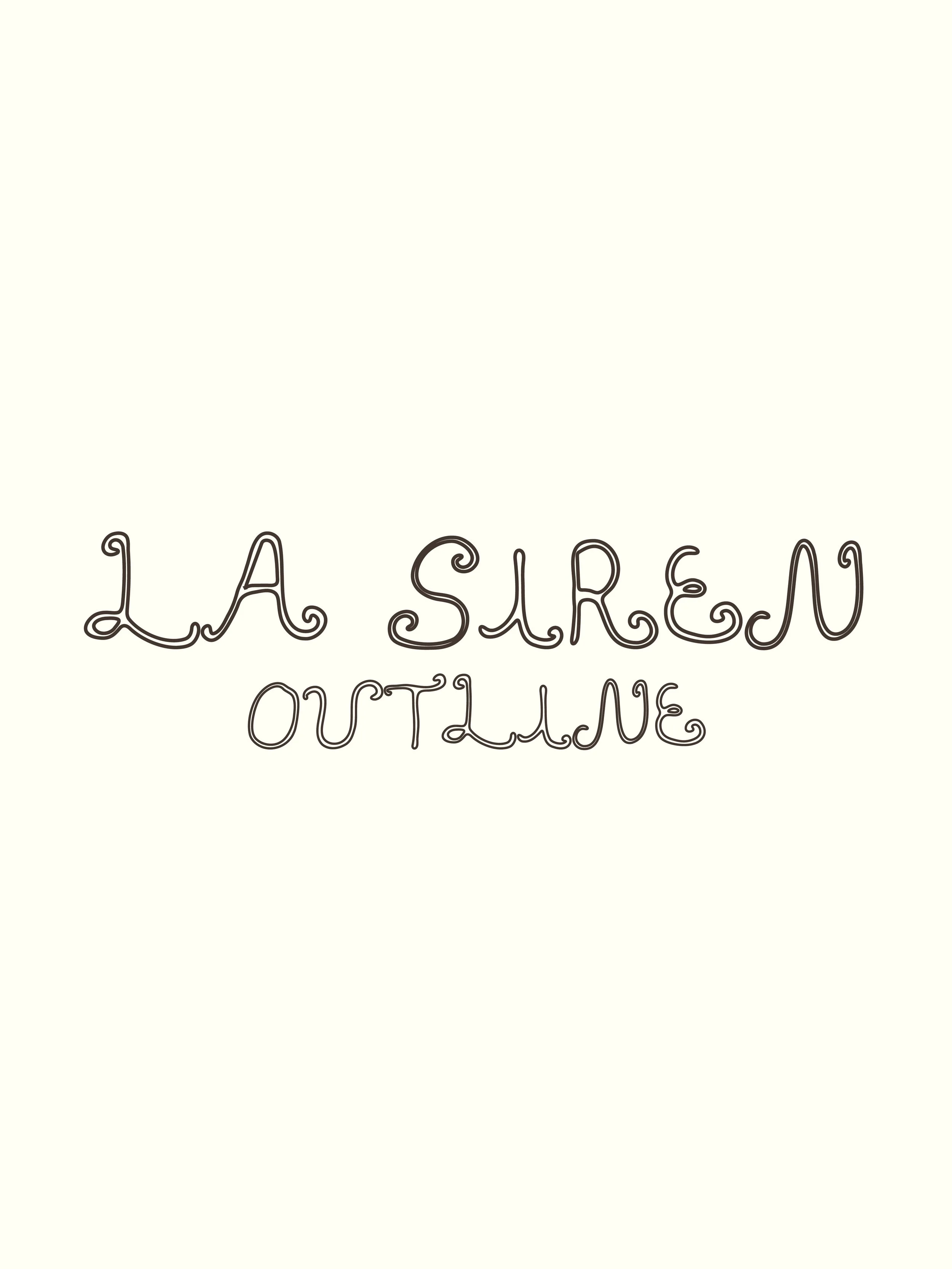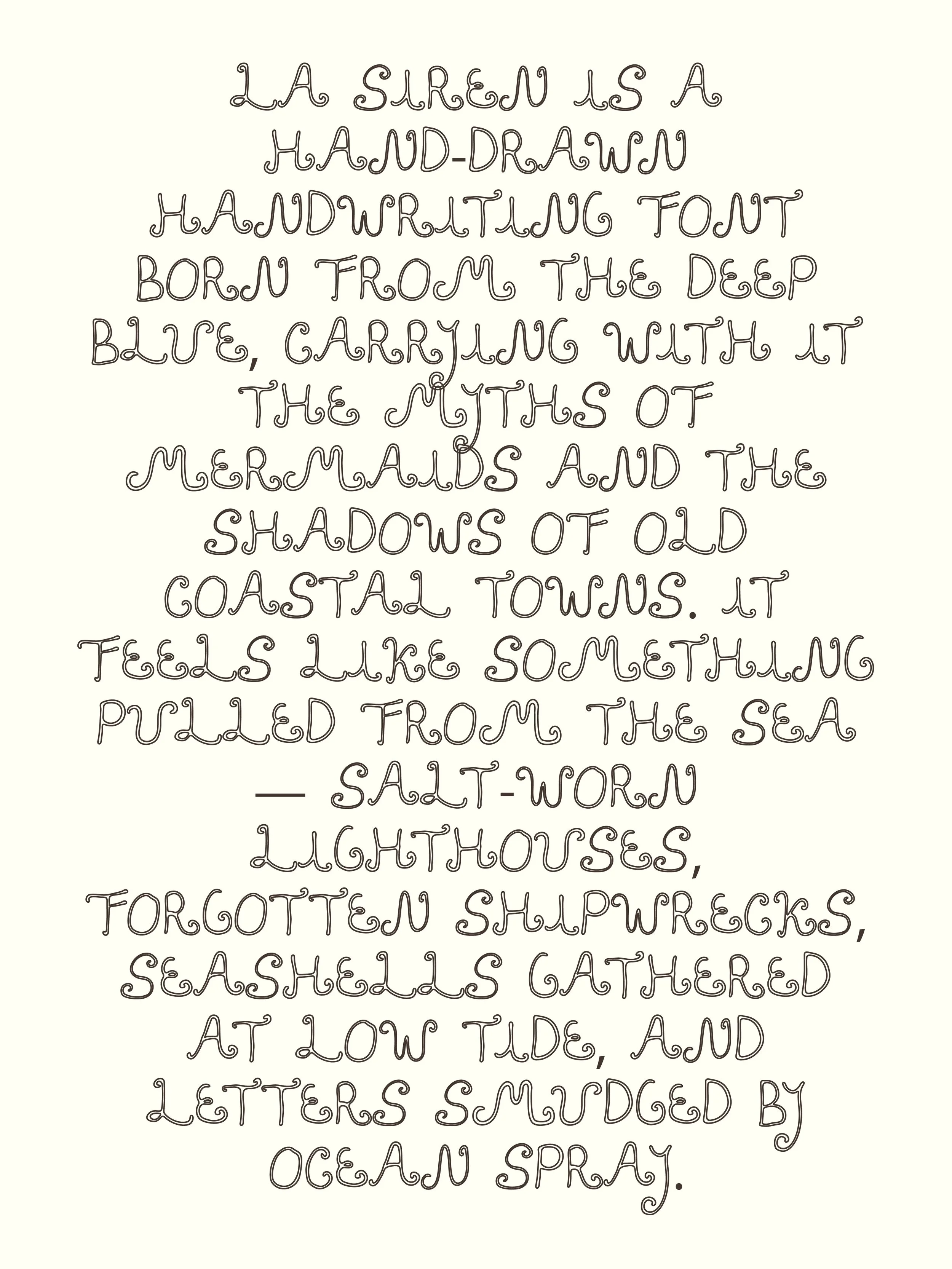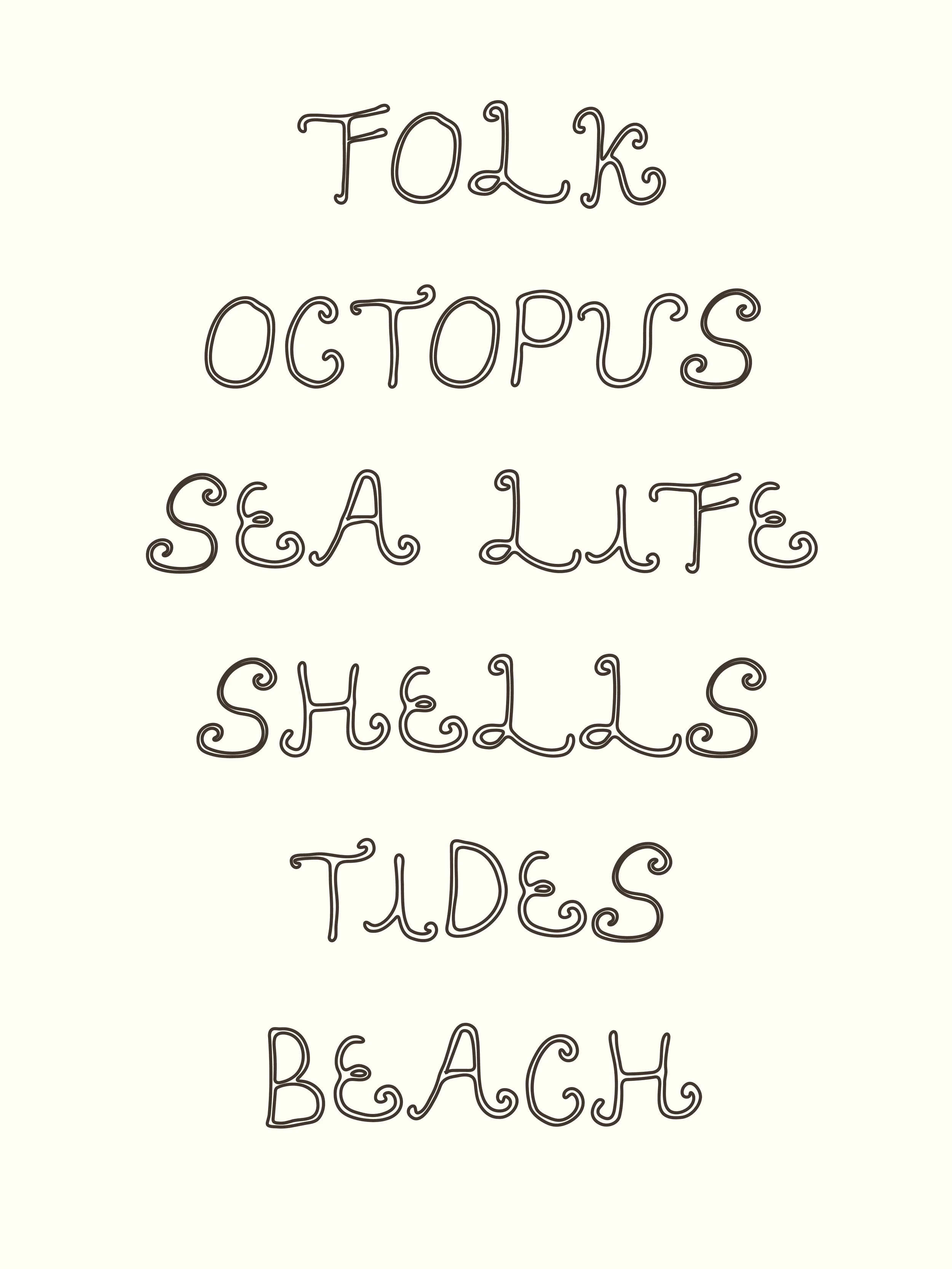
La Siren Outline is a hand-drawn handwriting font, inspired by the deep blue seas, folklore of mermaids, and the weathered character of old coastal towns. Think salt-stained lighthouses, shipwrecked treasures, seashells collected at low tide, and handwritten notes that have survived the ocean spray.
This font leans into true imperfection — uneven strokes, shifting sizes, and textures that feel both organic and timeworn. Its irregularity gives La Siren a unique charm, perfect for when you want your lettering to feel alive, raw, and evocative. The mood drifts somewhere between mystery and nostalgia, with a touch of seaside eeriness.
Because of its hand-crafted wobble, La Siren also works beautifully as a base for custom wordmarks and logos — a font that invites you to manipulate, adapt, and play further.
Perfect For:
Menus + wine lists with a raw, hand-crafted touch
Logos and branding with coastal or folk-inspired charm
Handwritten-style wordmarks that need imperfection + character
Editorial layouts, zines, and posters with an oceanic or mysterious vibe
La Siren isn’t polished or neat — it’s saltwater-washed, imperfect, and full of old-world charm.
This is the outline version of La Siren Display Font.